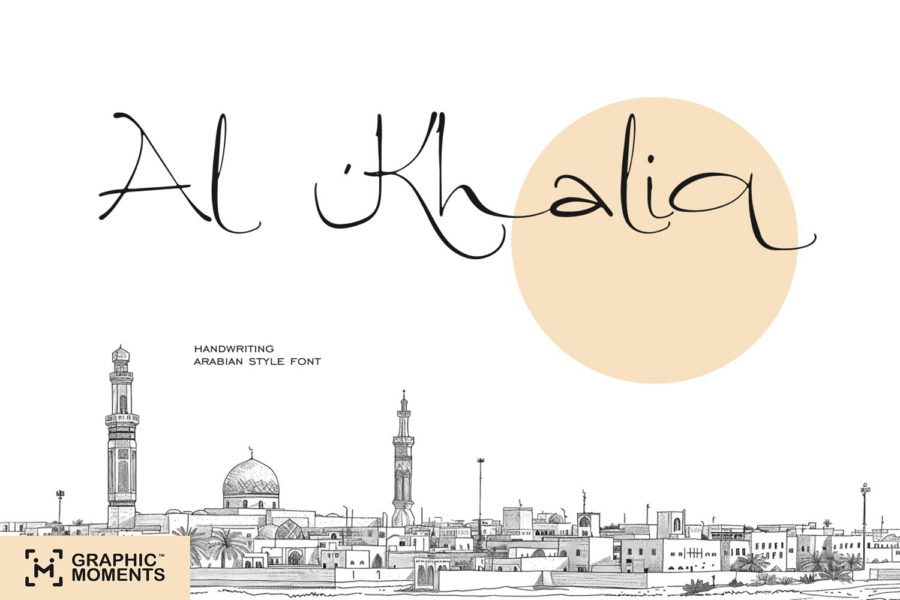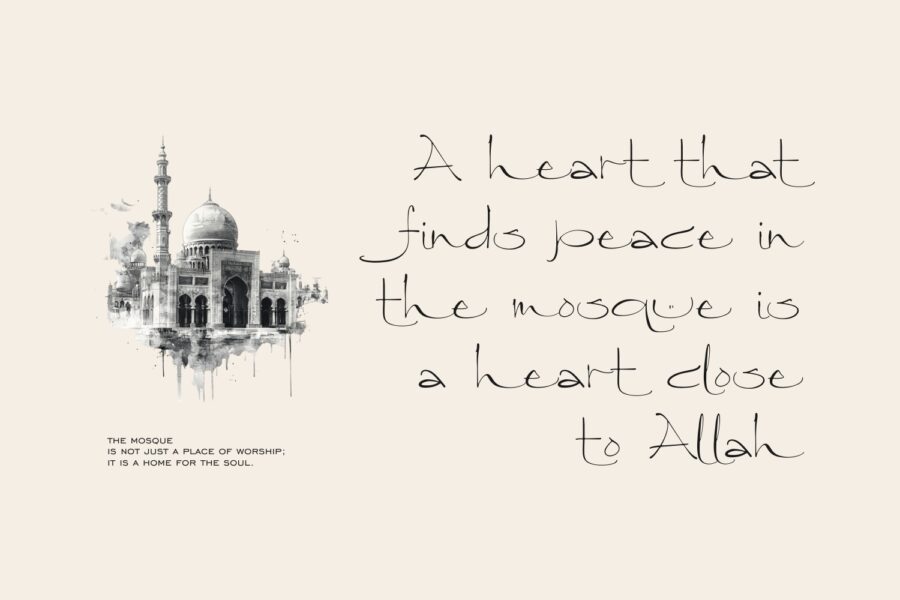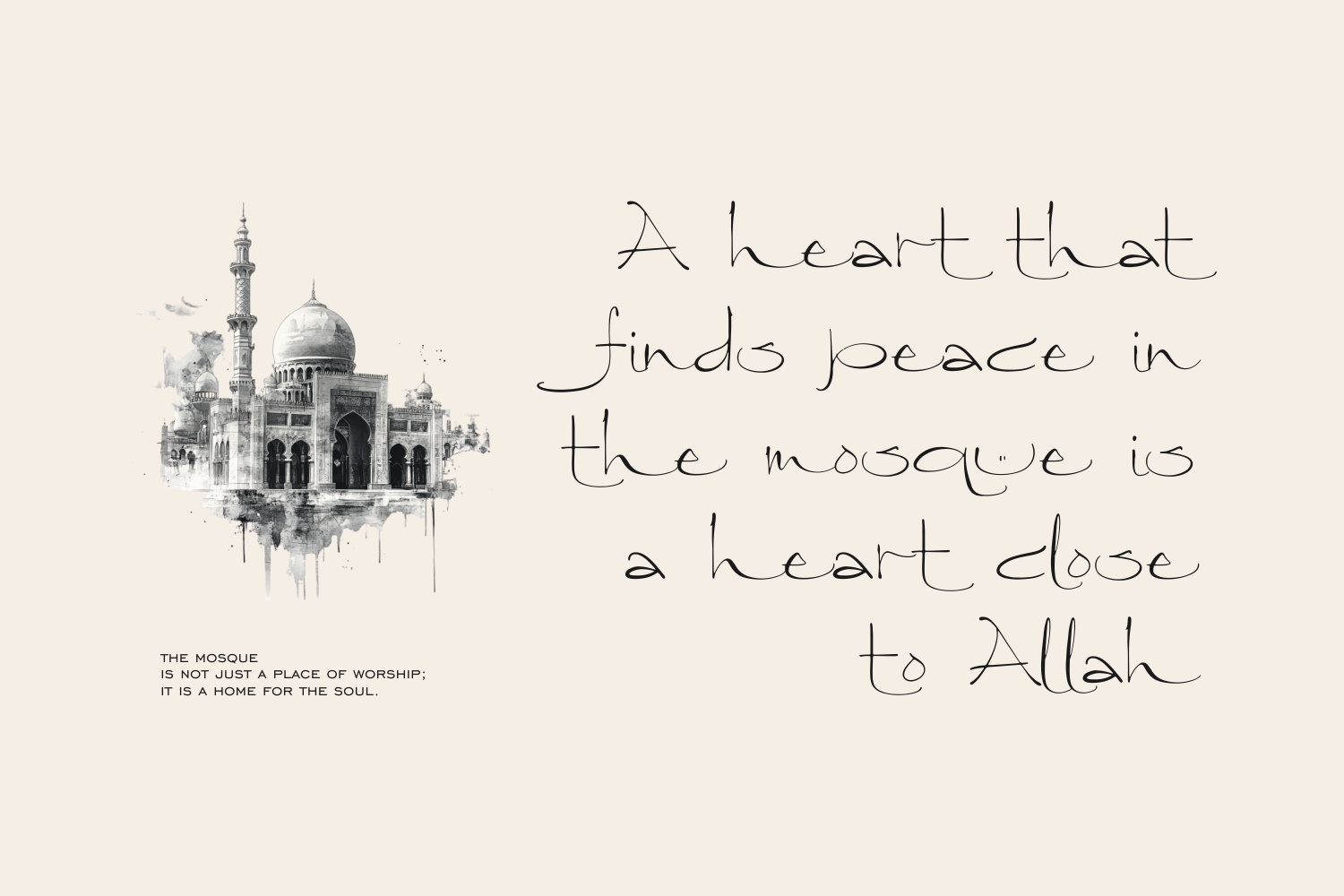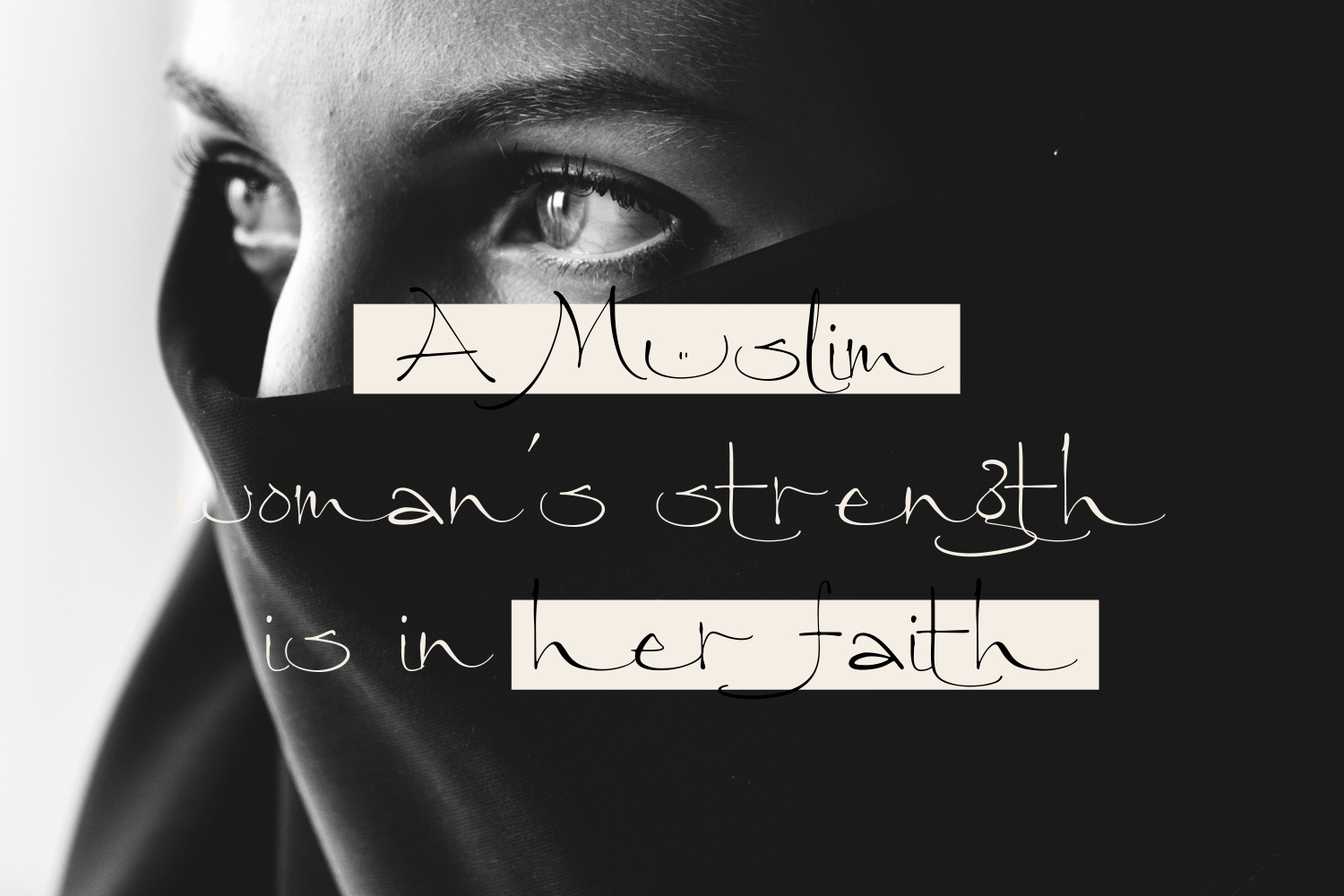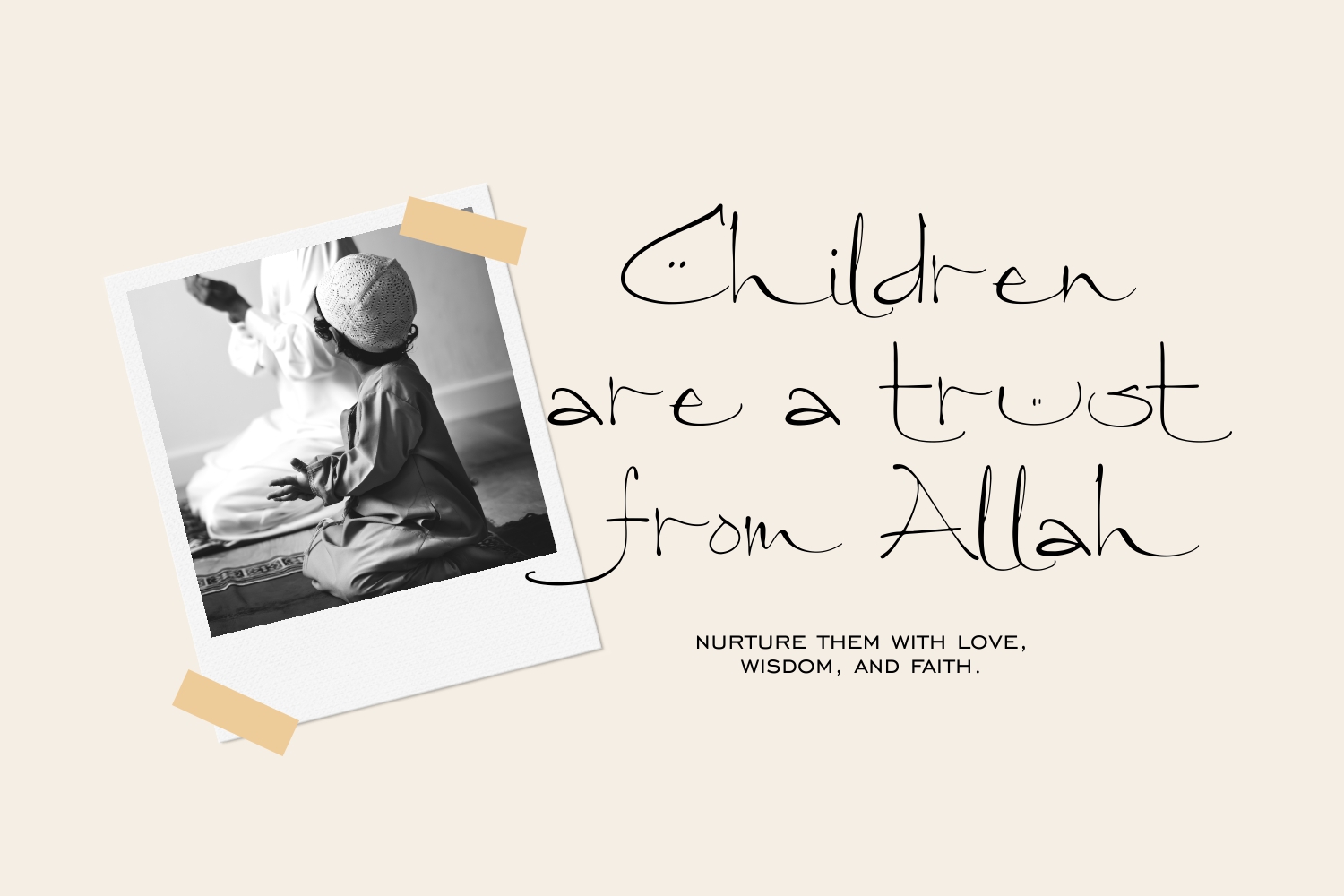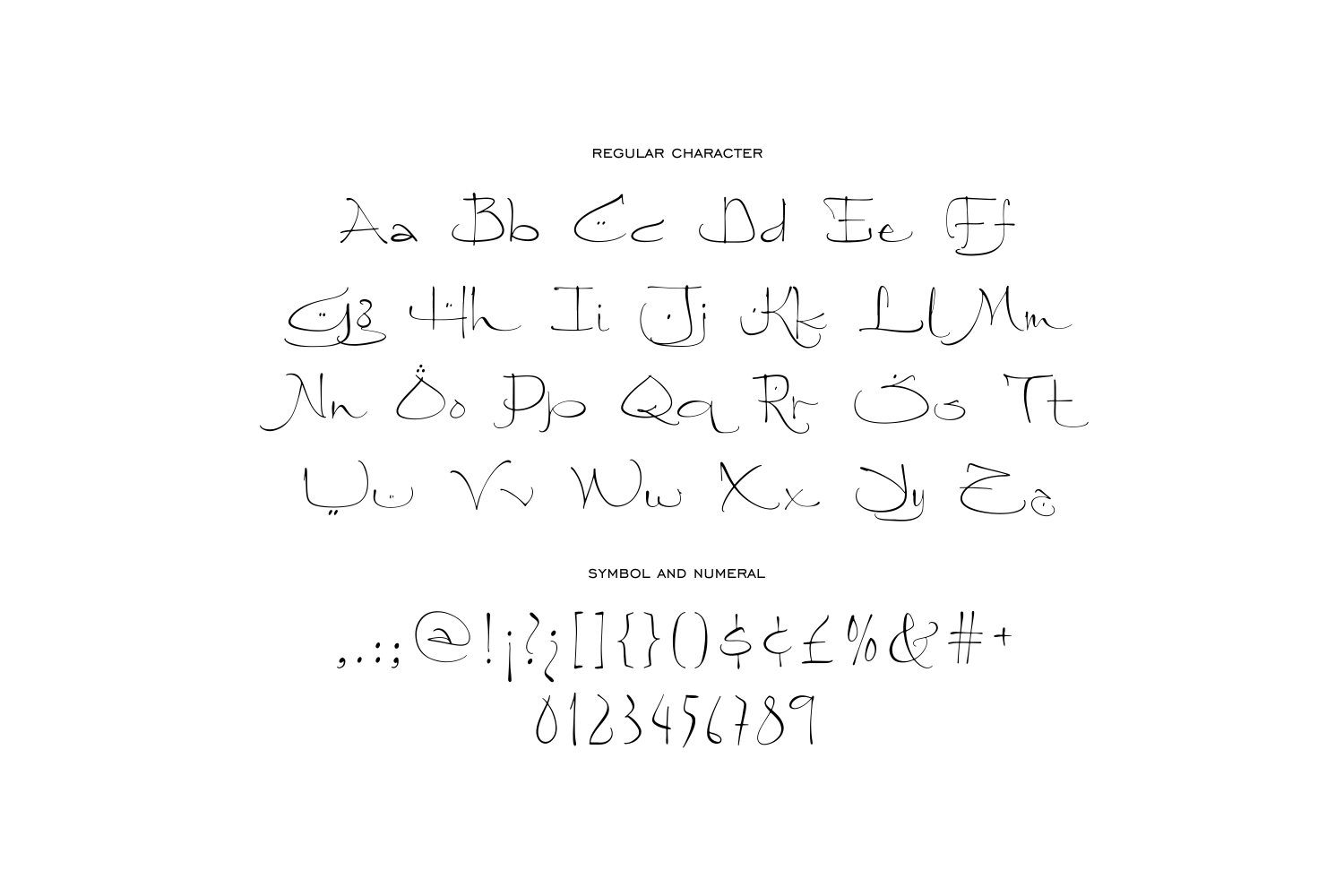
Al Khaliq is an elegant and flowing handwriting font with a delicate, artistic style. Inspired by the graceful lines of Arabian script, it features thin, connected strokes and a fluid rhythm that gives it a personal and organic feel. This font is perfect for adding a touch of sophistication and intimacy to your designs, making it suitable for a variety of projects that need a soft, handcrafted look.
This font is a fantastic choice for creating designs with a serene and spiritual theme. It works beautifully for social media posts with quotes, greeting cards for religious occasions, and personal branding that aims for a soft and gentle aesthetic. Its unique, decorative curves make it ideal for headlines and titles where you want to evoke a sense of calm and beauty. The combination of its handwriting style and Arabic-inspired details makes Al Khaliq a wonderful tool for designers looking to create heartfelt and elegant visuals.
Al Khaliq